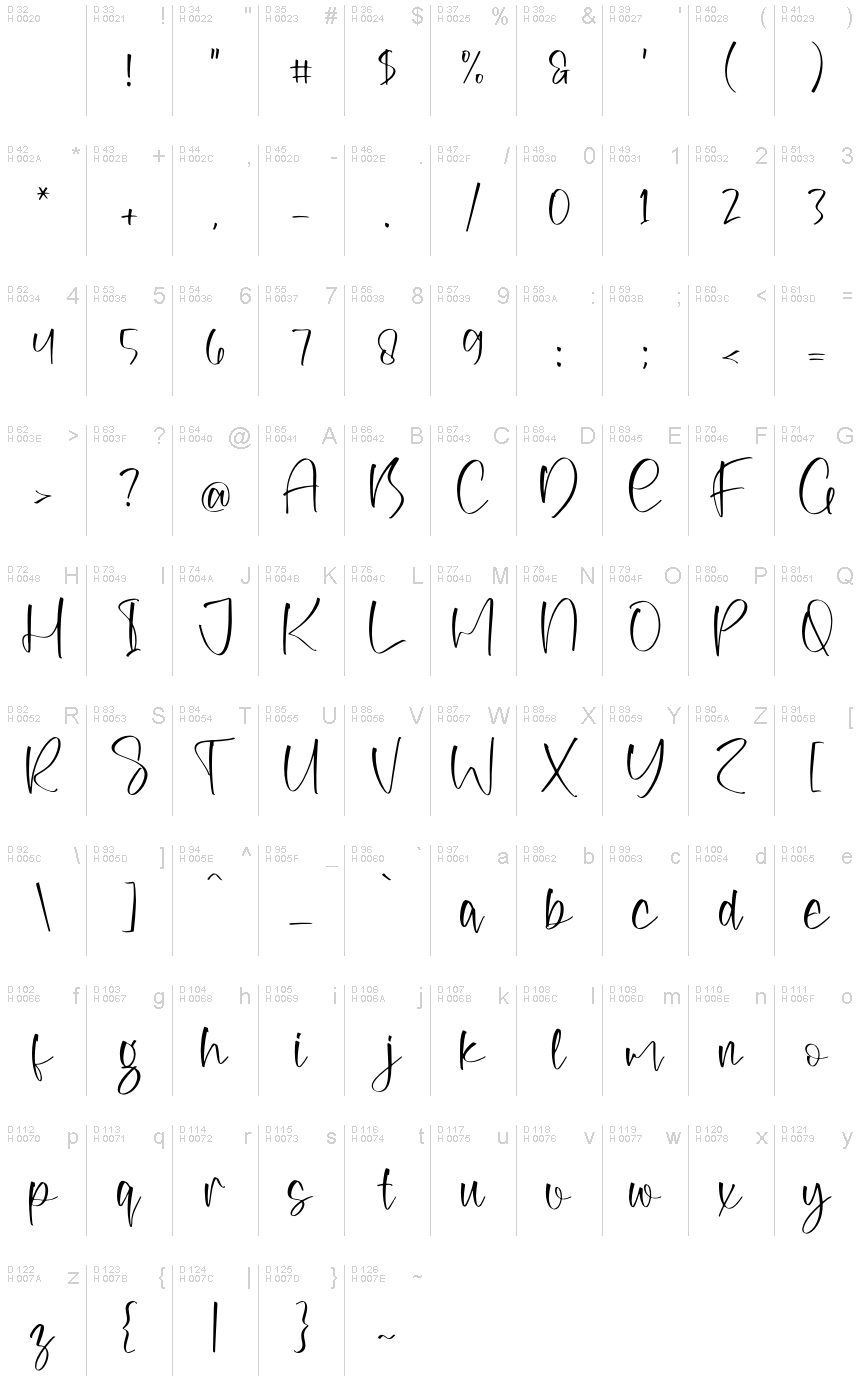
Masstile Shonetta
Masstile Shonetta font, designed by Perspectype Studio at Letterena.com, exudes an effortless charm with its whimsical handwritten style. The graceful curves and flowing strokes create a distinctive, inviting appearance that captures attention. Its expressive flair is accentuated by broader letters, lending a sense of warmth and personality to every word.
Ideal for use in creative projects such as greeting cards, personalized invitations, and branding that seeks to evoke a friendly atmosphere, Masstile Shonetta seamlessly balances elegance and playfulness. This unique font not only enhances visual storytelling but also resonates with audiences looking for authenticity and creativity in design. Whether used in digital media or printed materials, its captivating aesthetics ensure it stands out beautifully across various contexts.